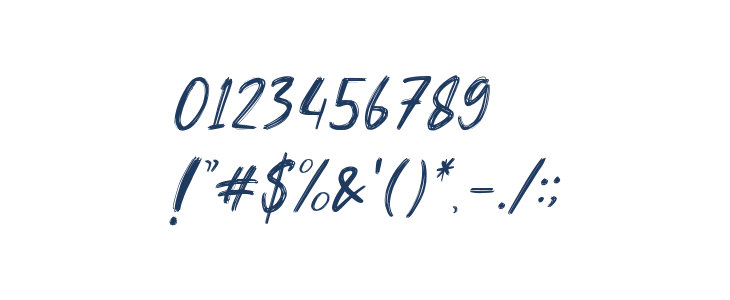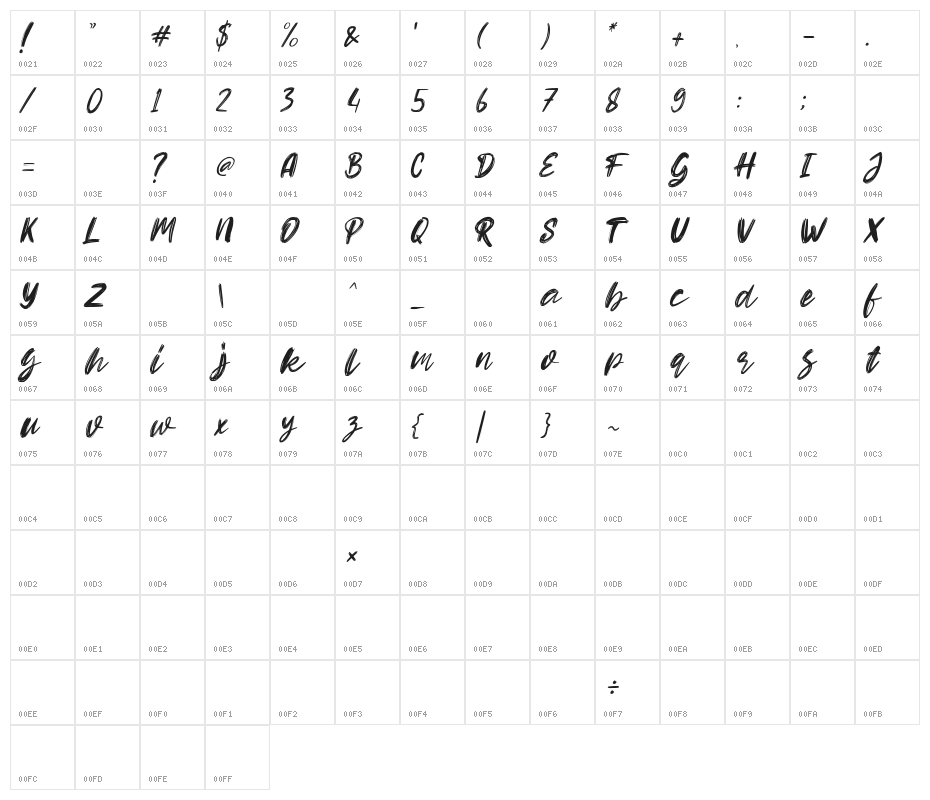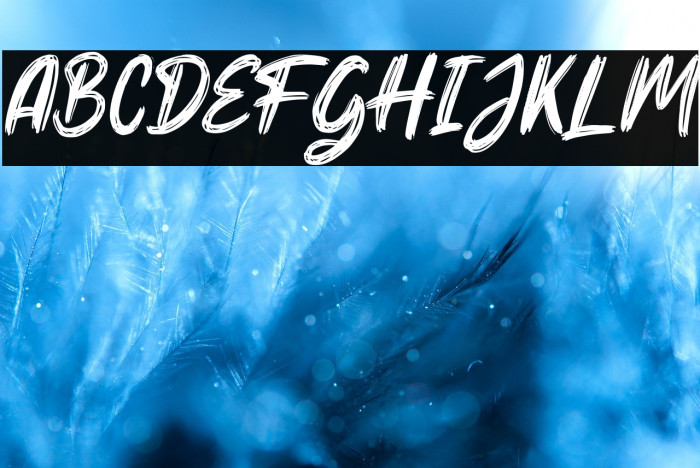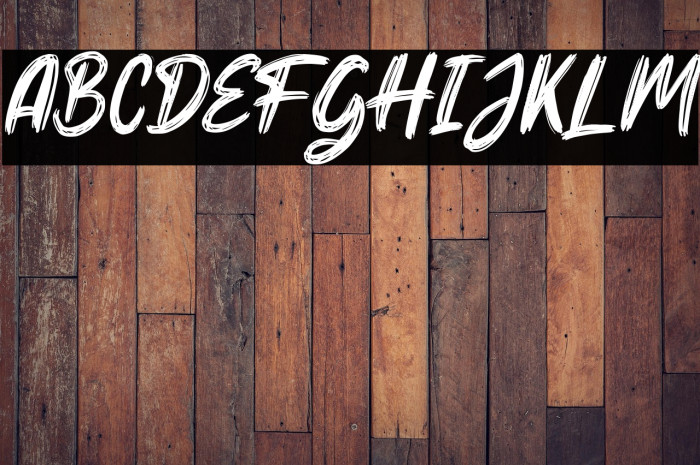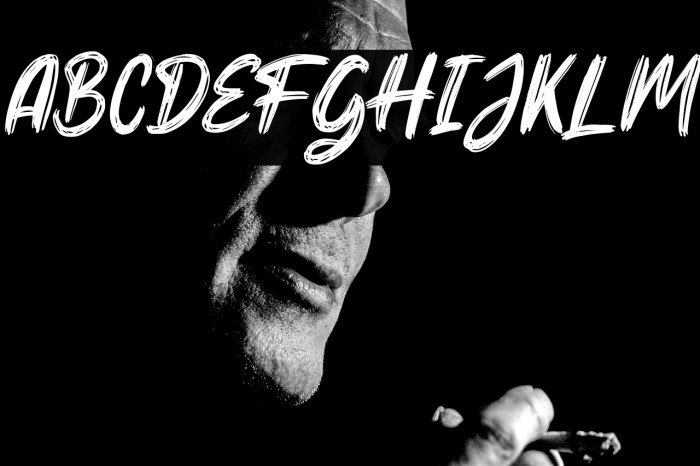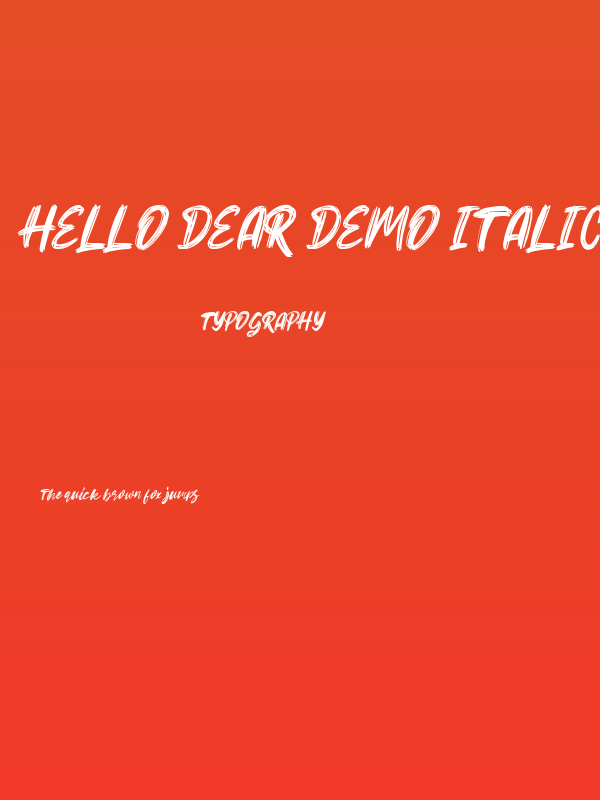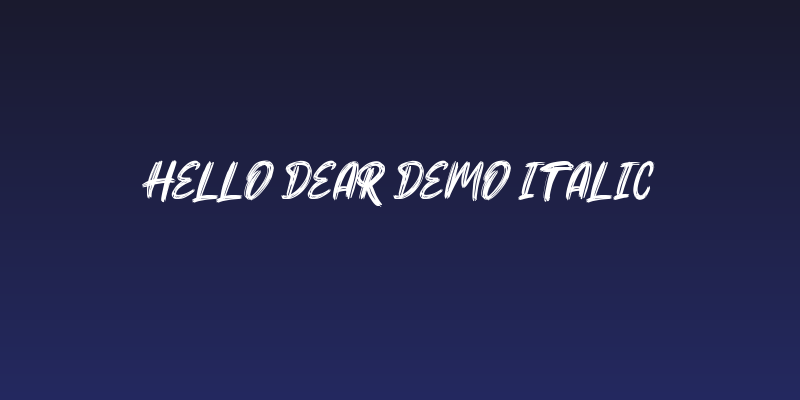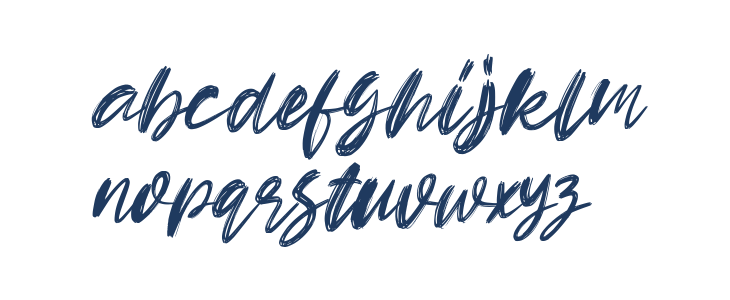
Hello Dear Demo Italic Font
Hello Dear Demo Italic Description
This font exudes a dynamic and energetic style, characterized by its bold, brush-like strokes that give it a handwritten appearance. The letters are slightly slanted, enhancing its italic nature, and the strokes vary in thickness, adding a sense of movement and fluidity. The uppercase and lowercase letters maintain a consistent style, with a playful yet sophisticated flair. Numbers and special characters are crafted with the same attention to detail, ensuring a cohesive look across all elements. This font is perfect for projects that require a personal touch or a creative edge.